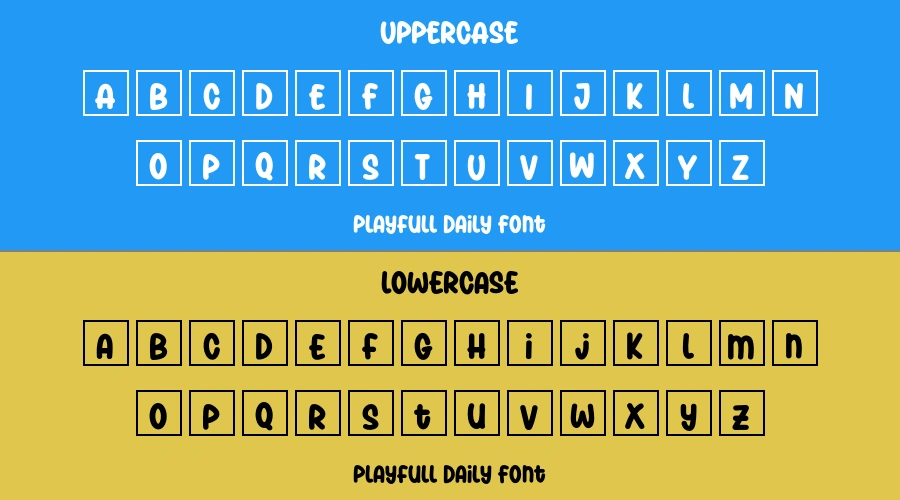
About Playfull Daily Font
Designed with precision, Playfull Daily Font merges elegant proportions with durability in every character. This versatility makes it particularly effective for advertising headers, where refinement and cultural resonance directly impact communication quality. Each letterform demonstrates meticulous craftsmanship.
Technical excellence shines through elements like concave curves and arrow sets, enhancing typographic versatility. In section headers settings, Playfull Daily Font proves its worth through superior reproduction fidelity. The thoughtful execution of loop structure and emotional resonance ensures professional results.